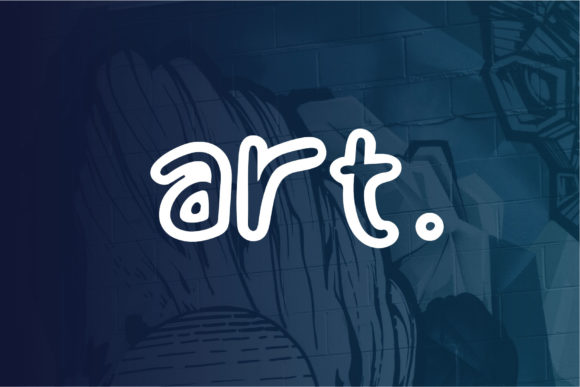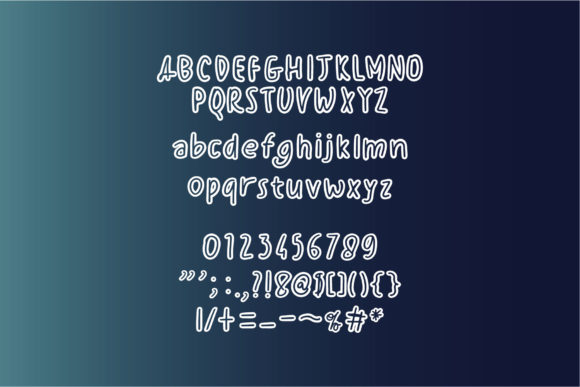
The Doodle Font: A Cool and Friendly Display Font to Elevate Your Designs
I’ll never forget the time I was working on a project for a client who needed a fun and playful font to match their brand’s quirky personality. I spent hours scouring the internet for the perfect font, but nothing seemed quite right. That was until I stumbled upon the Doodle font. With its cool and friendly vibe, it was love at first sight! In this article, I’ll share my experience with the Doodle font, its features, and how to make the most of it in your designs.
An Honest Review of Doodle Font
So, what makes the Doodle font so special? Let’s dive into the good stuff and some of its quirks.
What I Love About Doodle Font
- ✨ Unique and playful design: The Doodle font has a one-of-a-kind look that’s sure to make your designs stand out.
- ✅ Highly versatile: This font can be used in a wide range of projects, from digital designs to print materials.
- 💡 Inspires creativity: The Doodle font’s quirky personality can help spark new ideas and inspire your creativity.
While the Doodle font is amazing, it’s not perfect. Here are a few things to keep in mind:
- 🤔 May not be suitable for body text: Due to its playful nature, the Doodle font may not be the best choice for large blocks of text.
- ⚠️ Limited availability of certain characters: Some special characters or glyphs may not be available in the Doodle font.
The Backstory of Doodle Font
The Doodle font was created by a talented designer who wanted to create a font that would inspire creativity and playfulness. The designer’s inspiration came from their childhood doodles and sketches, which they transformed into a unique and fun font. Today, the Doodle font is loved by designers and crafters around the world for its quirky personality and versatility.
Q: What is the Doodle font best used for?
A: The Doodle font is perfect for creative projects, such as titles, headings, and social media graphics.
Q: Is the Doodle font suitable for body text?
A: No, the Doodle font is not recommended for body text due to its playful and decorative nature.